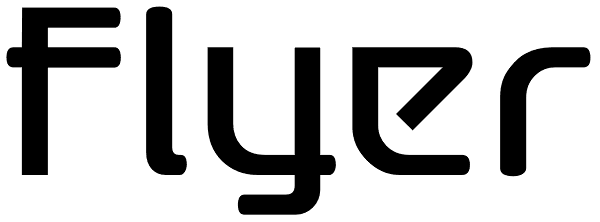
Flyer
Flyer is an eye-catching, slightly eccentric yet highly usable typeface that comes in three weights from Cessna, through Boeing 737, up to Airbus A380.